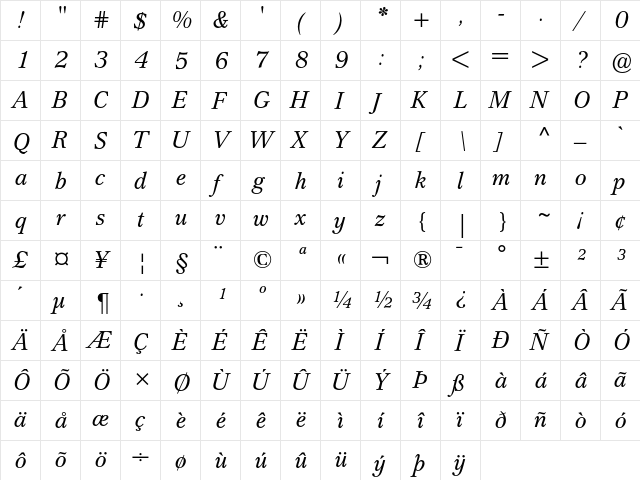
Cremona Italic
Design Context for Cremona Typeface
Cremona is a composed and adaptable typeface that performs quietly and consistently across a wide range of design contexts. Its italic angle brings a sense of urgency and motion to the letterforms.
Pro Tip: Use Cremona for emphasis, pull quotes, and subheadings where its slanted energy can add rhythm to the layout.